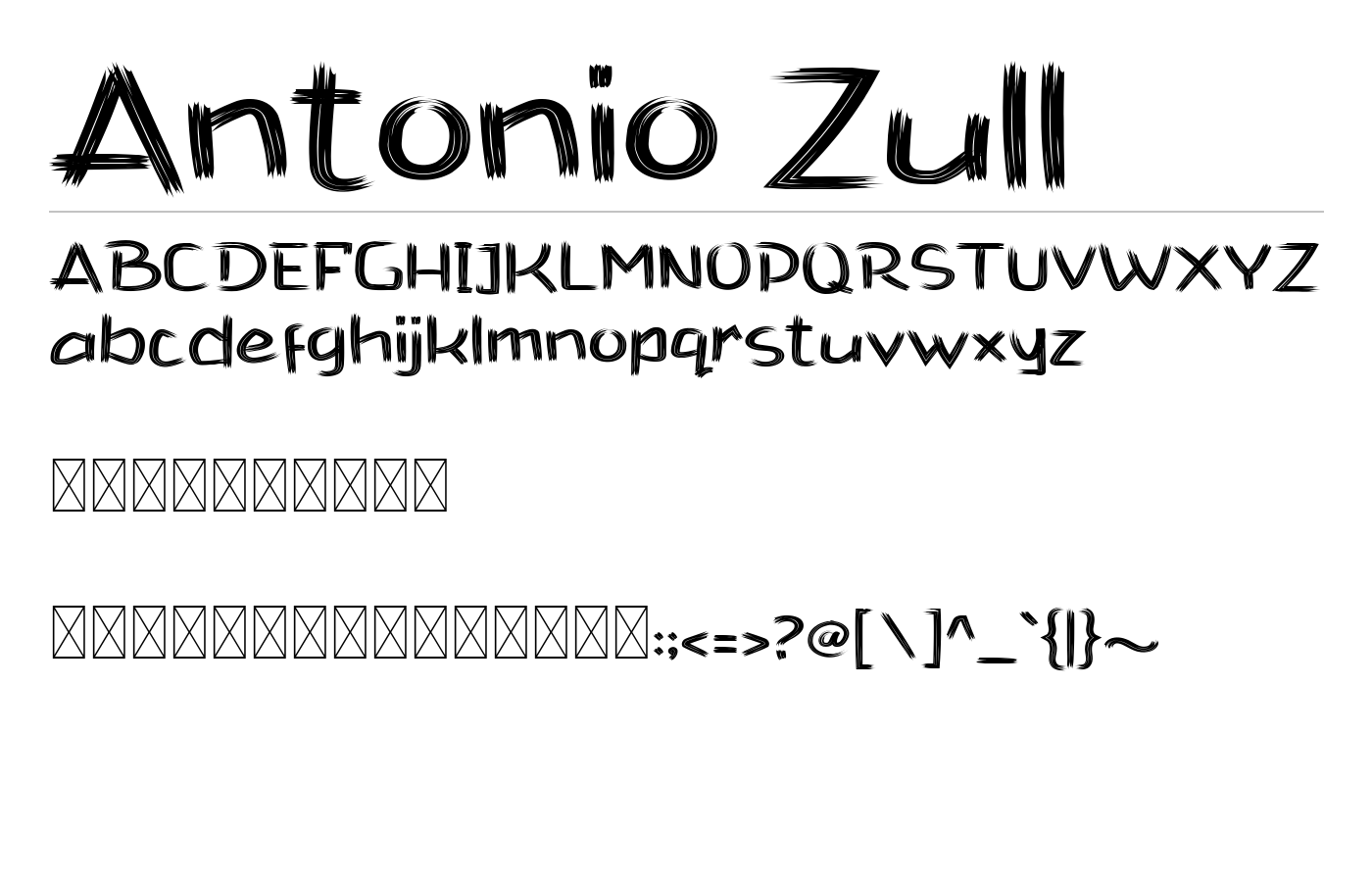
Antonio Zull is a playful and artistic sans serif font characterized by textured, brushstroke-like lines that give it a hand-drawn, dynamic feel. Its irregular strokes and lively forms make it ideal for creative and informal designs, bringing a sense of energy and originality to headlines, posters, and branding projects looking for a unique, handcrafted touch. This font works best where expressiveness and personality are key, adding a bold, artistic flair to any visual communication.
Antonio Zull Font
About Antonio Zull Font
| Font family | Antonio Zull Font |
| Designer | Joko Triwijayanto |